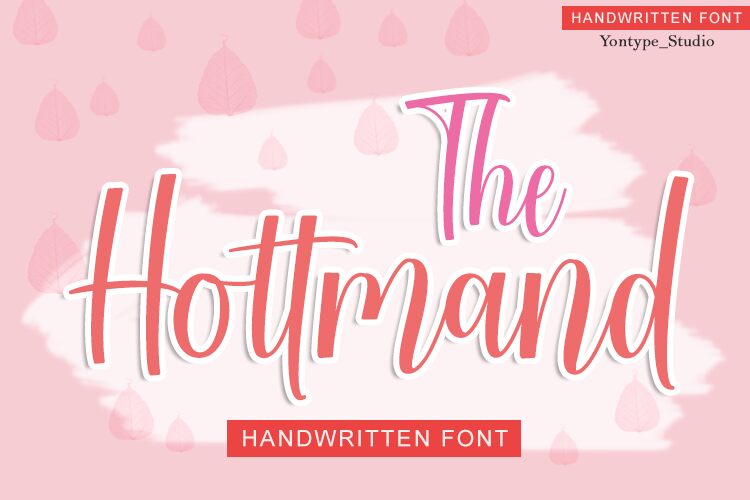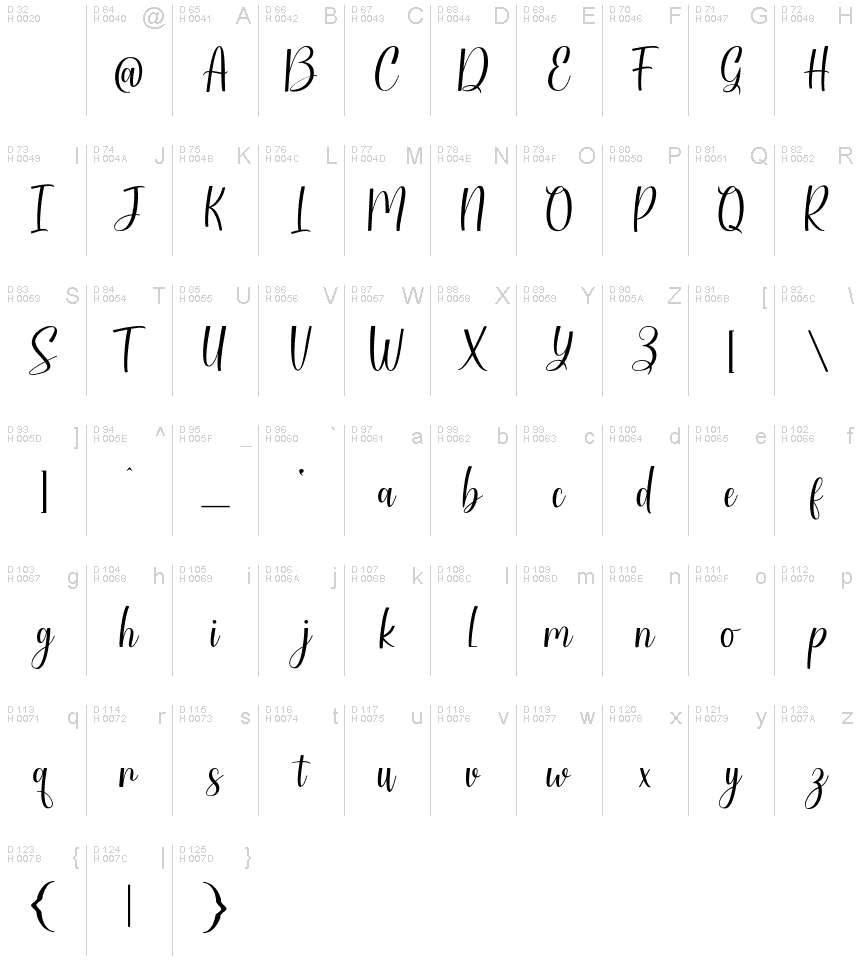
Hottmand
Hottmand, an exquisite creation by YonType Studio, is a captivating handwritten font. Its semi-light weight gives it an elegant touch, making it perfect for projects that require a refined and sophisticated look. Whether you're designing wedding invitations, crafting delicate logos for luxury brands, or creating graceful packaging for high-end products, Hottmand will effortlessly elevate your work. With its fluid strokes and charming imperfections, this font adds a personal and human touch to websites, blogs, or social media graphics. Let Hottmand be the embodiment of grace in your next creative endeavor.